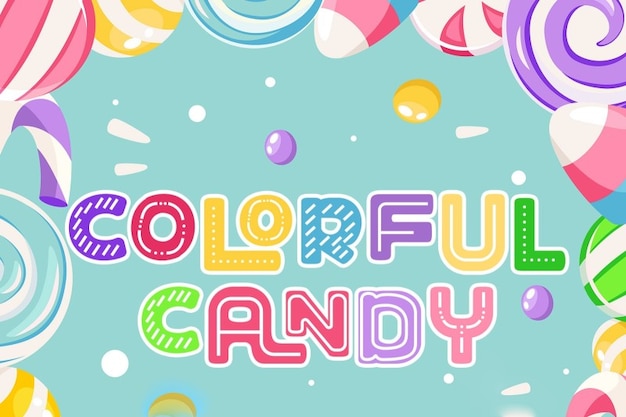
Colorful Candy Font
"Colorful Candy" is a delightful font that brings a sugary twist to design. Featuring playful inline letters that mimic the look of vibrant candy, it exudes sweetness and fun. Perfect for children’s projects, party invitations, or any design needing a cheerful touch, this font adds a burst of color and whimsy, making your text pop with a delicious charm.